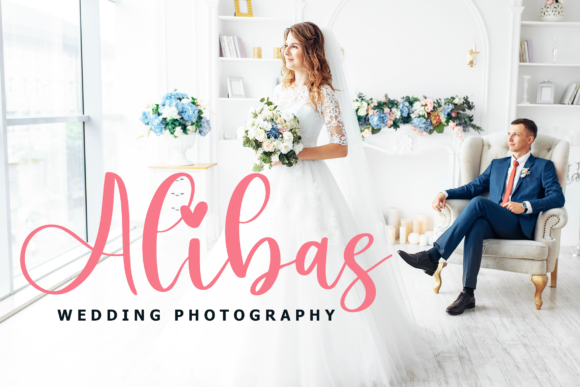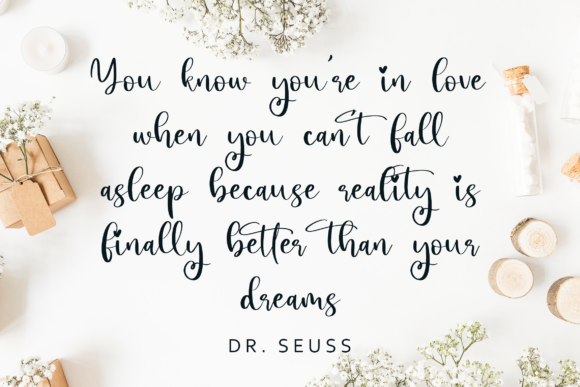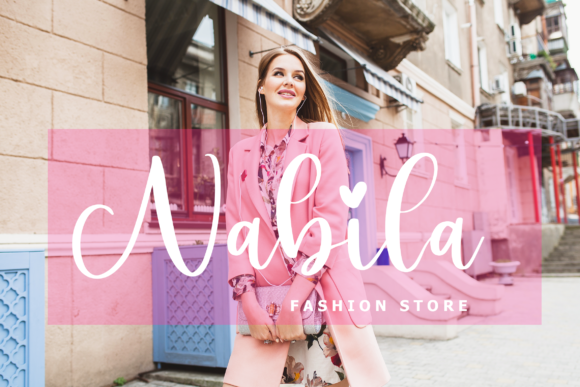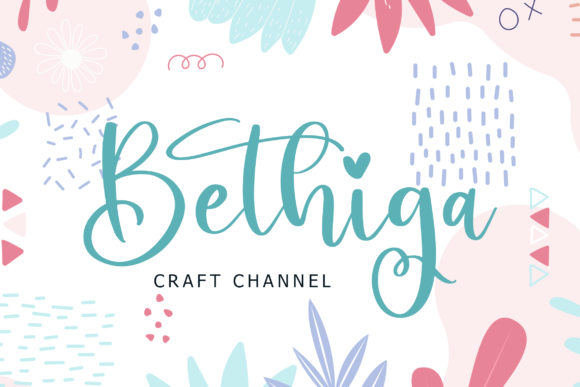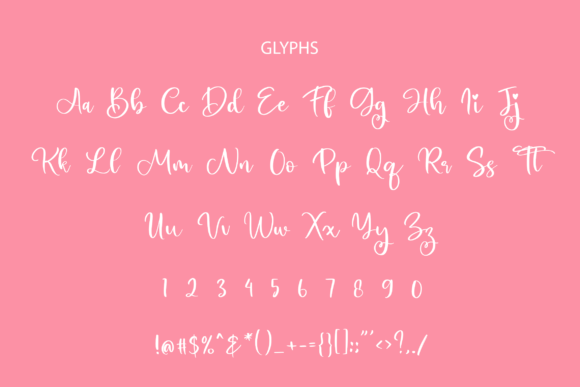
Introducing Chintya Font: The Delicate and Timeless Handwritten Font
Are you a designer or crafter looking for a unique and elegant font to add a personal touch to your designs? Look no further than Chintya Font, an incredibly distinct, delicate, and timeless handwritten font. With its stunning appearance and versatility, Chintya Font is perfect for a wide range of design projects, from wedding invitations and thank you cards to quotes, greeting cards, logos, business cards, and more.
The Beauty of Chintya Font
Chintya Font is a beautifully crafted handwritten font that exudes elegance and sophistication. Its delicate strokes and intricate details make it a standout among other fonts, adding a touch of whimsy and romance to any design. Whether you’re creating a wedding invitation, a quote, or a business card, Chintya Font is sure to make your design stand out.
Wedding designers and event planners, rejoice! Chintya Font is the perfect choice for creating stunning wedding invitations, save-the-date cards, and other event materials. Its elegant and sophisticated appearance will set the tone for a beautiful and memorable event. Plus, its delicate and intricate details will add a touch of romance and whimsy to your designs.
Ideal for Stationery and Greeting Cards
Chintya Font is also perfect for creating a wide range of stationery and greeting cards, including thank you cards, birthday cards, and holiday cards. Its beautiful handwritten appearance will add a personal touch to your designs, making them feel more special and meaningful. Whether you’re creating cards for personal or business use, Chintya Font is sure to impress.
Great for Logos and Business Cards
But Chintya Font isn’t just limited to personal projects. It’s also a great choice for businesses looking to add a touch of elegance and sophistication to their branding. Use Chintya Font to create beautiful logos, business cards, and other marketing materials that will help your business stand out from the crowd.
Key Features of Chintya Font
- Delicate and intricate details: Chintya Font features beautiful, delicate strokes and intricate details that add a touch of elegance and sophistication to your designs.
- Timeless appearance: Unlike trendy fonts that quickly go out of style, Chintya Font has a timeless appearance that will remain beautiful for years to come.
- Handwritten appearance: Chintya Font has a beautiful, handwritten appearance that adds a personal touch to your designs.
- Versatile: Chintya Font can be used for a wide range of design projects, from wedding invitations and stationery to logos and business cards.
Tips for Using Chintya Font
To get the most out of Chintya Font, here are a few tips to keep in mind:
- Use it for headlines and titles: Chintya Font is perfect for headlines and titles, where its delicate and intricate details can really shine.
- Pair it with a simple font: To create visual interest, pair Chintya Font with a simple, clean font for body text.
- Experiment with colors: Chintya Font looks beautiful in a range of colors, from soft pastels to rich jewel tones. Experiment with different colors to find the perfect look for your design.